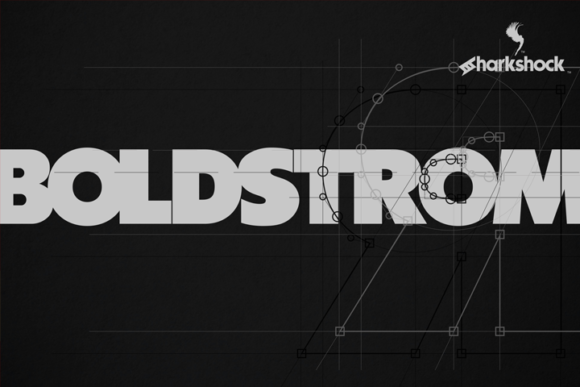
Unleash Your Creativity with Boldstrom Font
Have you ever been working on a project, pouring your heart and soul into every detail, only to feel like something is missing? That’s when the spark hits – you need a font that screams ‘look at me!’ and makes your creative vision stand out. That’s exactly what happens when you add the Boldstrom Font to your design.
Boldstrom Font is a bold and chunky lettered display font that’s designed to make a statement. Its unique character is perfect for grabbing attention and adding a touch of personality to your work. Whether you’re a graphic designer, artist, or simply someone who loves experimenting with fonts, Boldstrom Font is a valuable addition to your creative toolbox.
Boldstrom Font Key Features
- Font Family: Boldstrom Font is a sans-serif font family designed for readability and versatility.
- Font Size: Offers a range of font sizes from 10pt to 72pt, catering to various design requirements.
- Resolution: Supports high-resolution displays with crisp and clear typography at 300 DPI and above.
- Unique Characteristics: Features a unique blend of geometric and organic shapes, resulting in a clean and modern aesthetic.
- Language Support: Includes comprehensive language support for Latin-based languages, including accented characters and diacritical marks.
Review of Boldstrom Font
Overall, I found the Boldstrom font to be a solid choice for typography. Here are some of its standout features:
- ✨ Unique Style – Boldstrom has a distinct, modern look that sets it apart from more traditional fonts. The bold, geometric shapes make it perfect for headlines and titles.
- ✨ High Legibility – Despite its bold appearance, the font is surprisingly easy to read, even at small sizes.
- ✨ Good for Digital Use – The font renders well on various digital platforms, including screens and mobile devices.
- ⚠️ Limited Character Set – The font only includes a standard character set, which may not be suitable for languages that require more exotic characters.
- ⚠️ Not Ideal for Body Text – While Boldstrom works well for headlines, it can be overwhelming for larger blocks of text. It’s best used sparingly to add emphasis and visual interest.
Overall, I think the Boldstrom font is a great choice for designers who want to add a touch of modernity to their projects. While it may have some limitations, its unique style and high legibility make it a solid choice for a wide range of applications.
Practical Application Guide for Boldstrom Font
The Boldstrom Font is ideal for creating bold and eye-catching headings and titles. Use it to:
- Create attention-grabbing headlines.
- Add a touch of sophistication to your designs.
- Make your text stand out in crowded spaces.
Remember to use the Boldstrom Font in moderation to avoid overwhelming your audience.
Alternatives to Boldstrom Font
Montserrat is a sans-serif font designed for digital media. It’s a modern, clean, and highly legible font that works well for headings and body text. Montserrat is a good alternative to Boldstrom Font for designers who want a more contemporary look. Montserrat has a similar geometric feel, but with a more subtle and elegant appearance.
Open Sans is a sans-serif font that’s highly versatile and works well for both digital and print media. It’s a clean and modern font that’s easy to read, making it a great alternative to Boldstrom Font for designers who want a neutral and professional look. Open Sans has a more rounded feel compared to Boldstrom Font, but it’s still highly legible and works well for body text.
Merriweather is a classic serif font that’s perfect for designers who want a more traditional and elegant look. It’s a highly legible font that works well for body text and headings, making it a great alternative to Boldstrom Font for designers who want a more sophisticated appearance. Merriweather has a more traditional feel compared to Boldstrom Font, with a stronger emphasis on classic typography.
Inter is a modern sans-serif font that’s designed for digital media. It’s a highly legible font that works well for body text and headings, making it a great alternative to Boldstrom Font for designers who want a clean and contemporary look. Inter has a more minimalist feel compared to Boldstrom Font, with a focus on simplicity and readability.
Q: What is the recommended font size for the Boldstrom Font?
The recommended font size for the Boldstrom Font varies depending on the application and intended use. For digital interfaces, we recommend a minimum font size of 12 points (10pt for body text and 18pt for headings). For print applications, use a font size that is clear and legible for your intended audience.